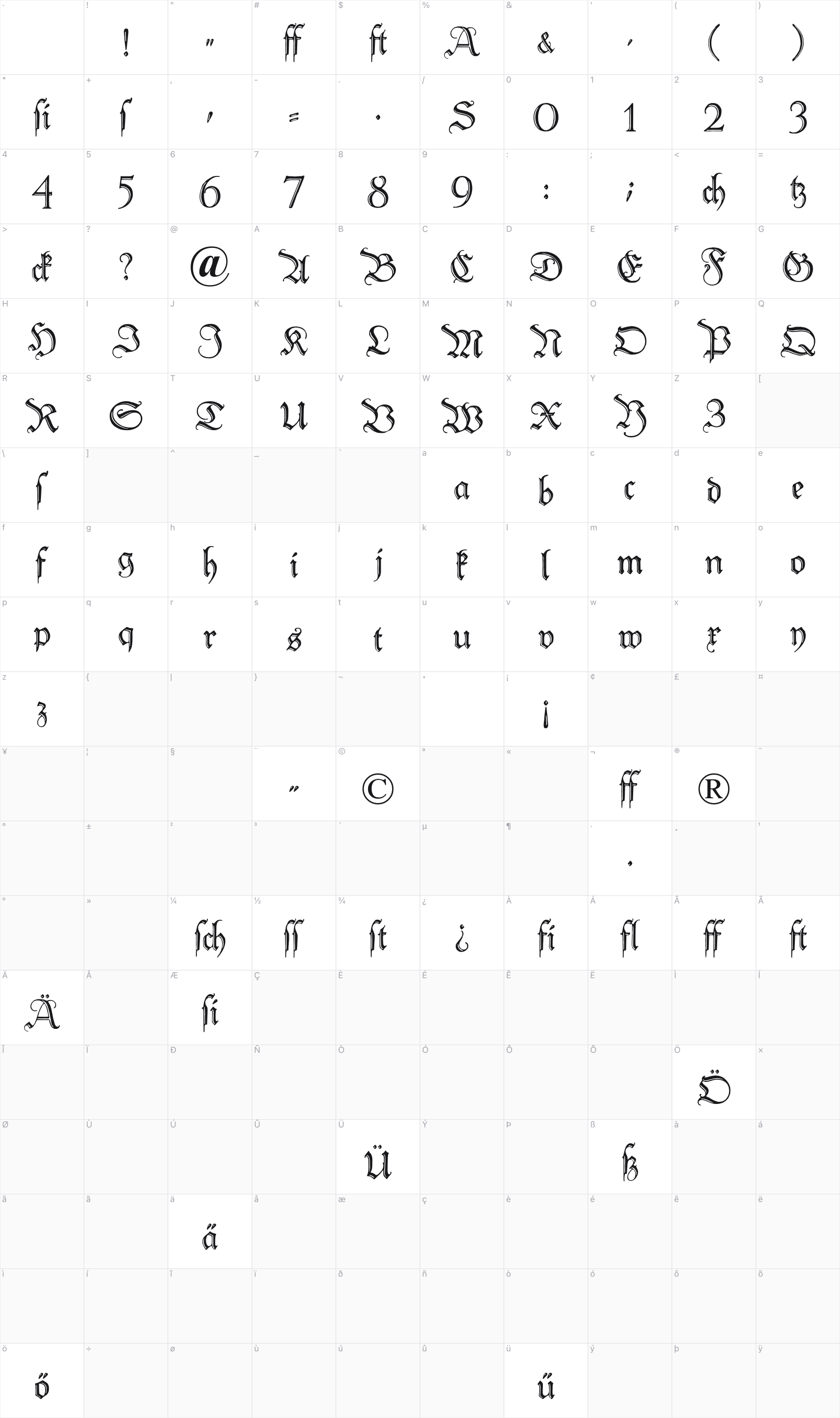
Peter Schlemihl
Peter Schlemihl is an ornate Fraktur blackletter from Dieter Steffmann, one of the most dedicated revivers of historical German typefaces in the free font space. The letterforms are richly detailed with the characteristic broken strokes and elaborate capitals of traditional Fraktur script, carrying a weight of medieval craftsmanship in every curve. Best reserved for headlines, certificates, and decorative contexts where the dense, gothic texture can read clearly and set the right tone.